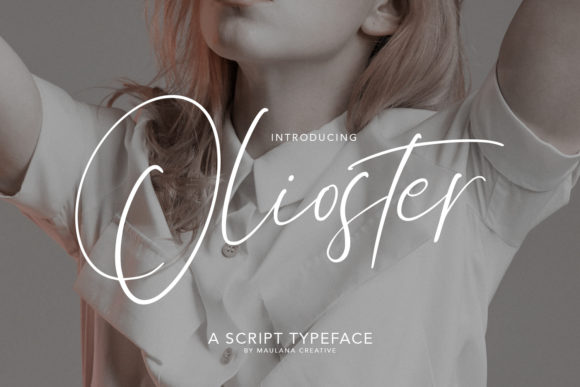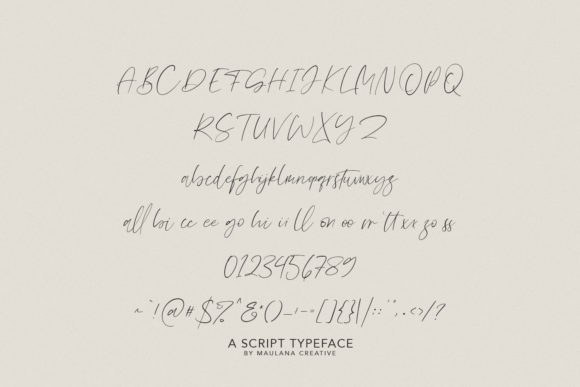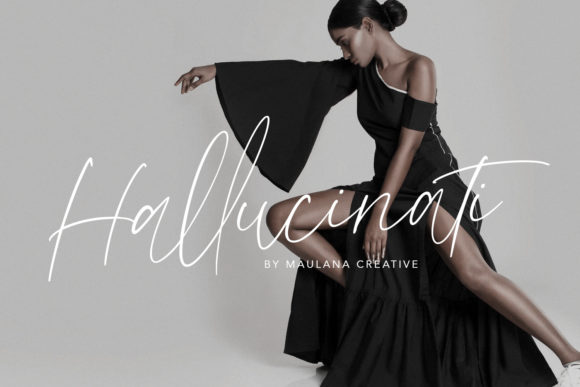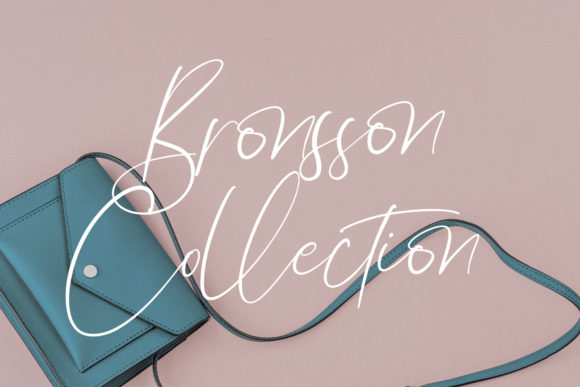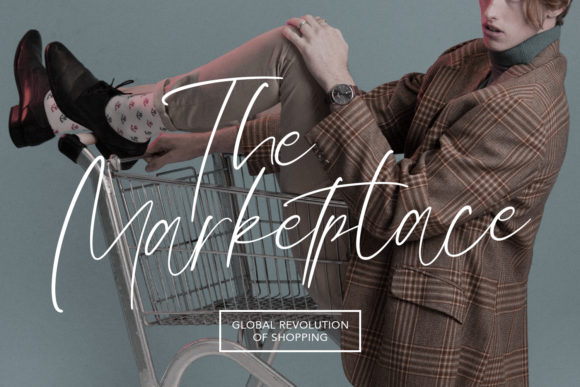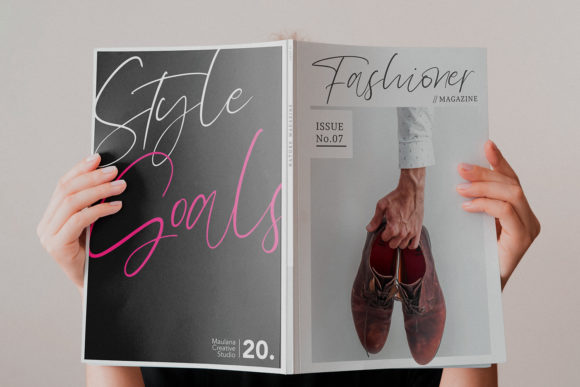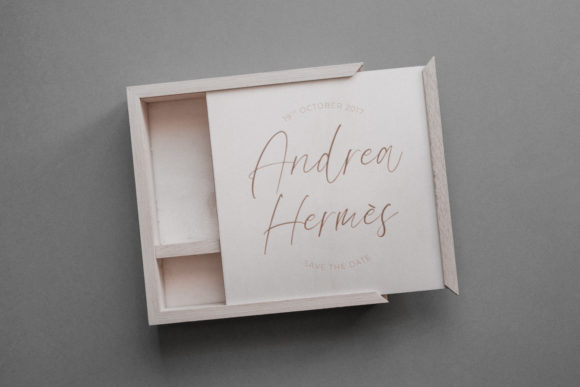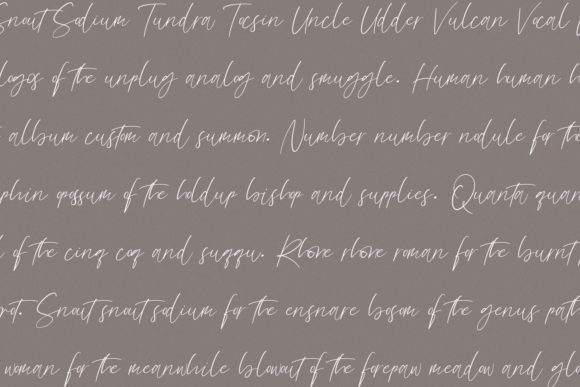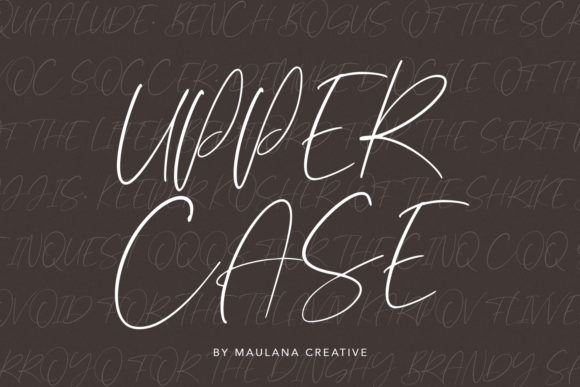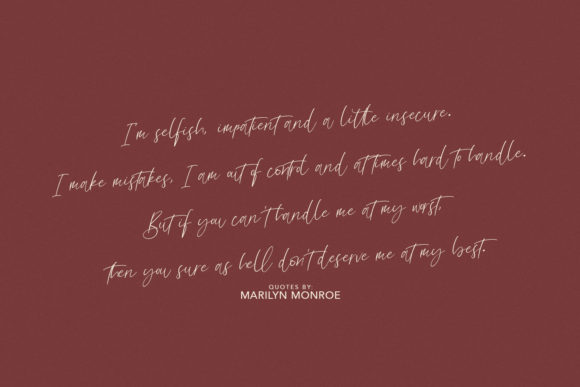
Olioster Font
About Olioster Font
Olioster is a flowing and timeless handwritten font. It has beautiful and well balanced characters and as a result, it matches a wide pool of designs. Add it to your most creative ideas and notice how it makes them come alive!